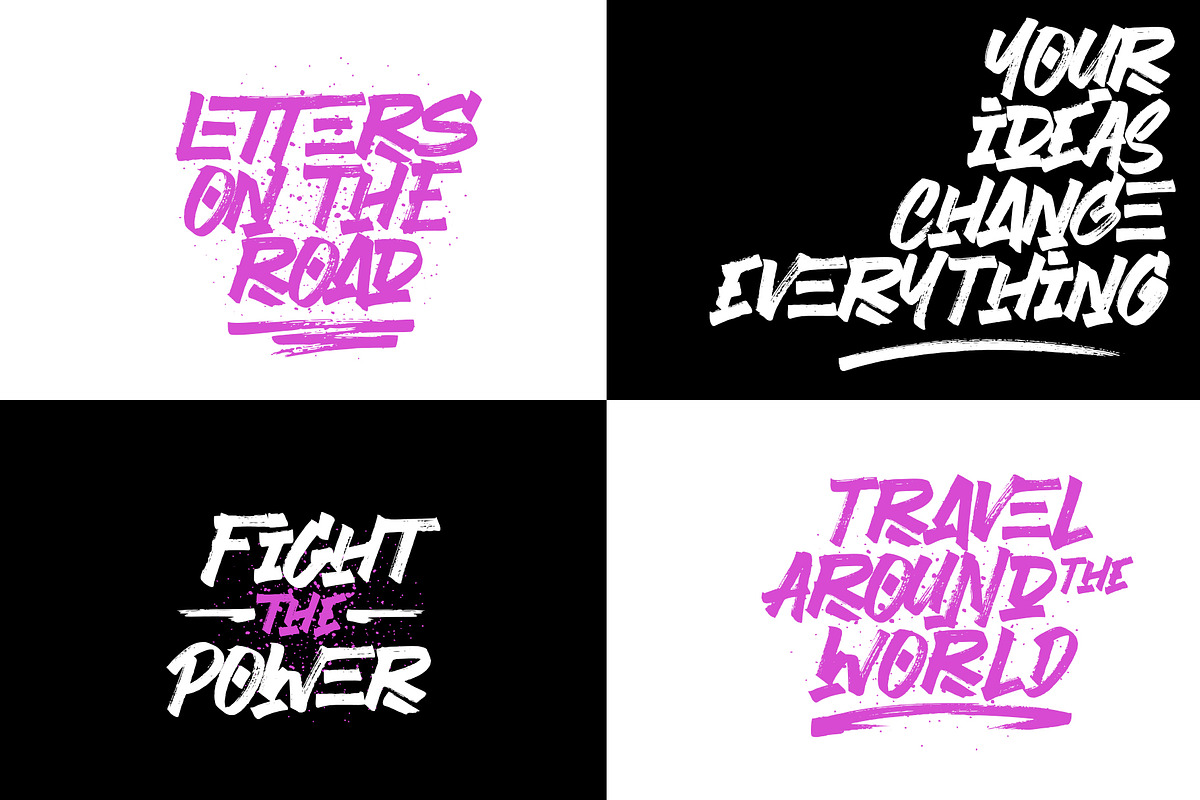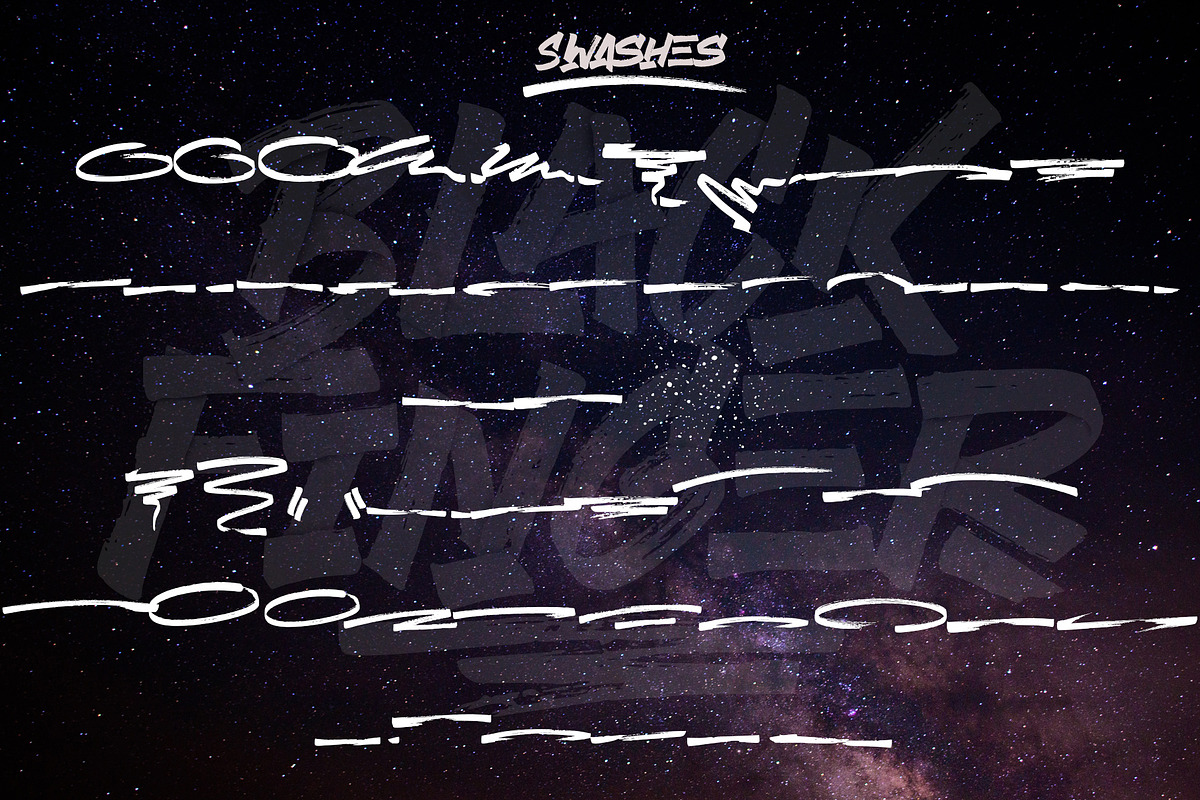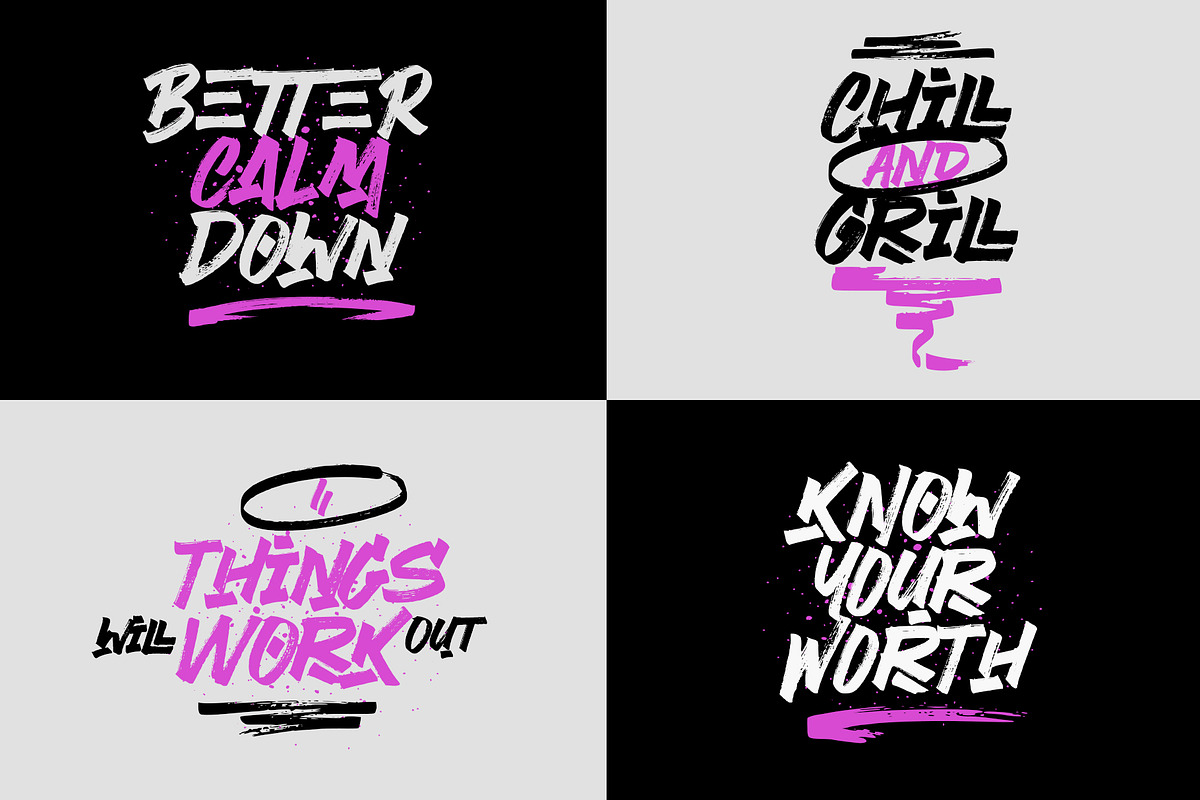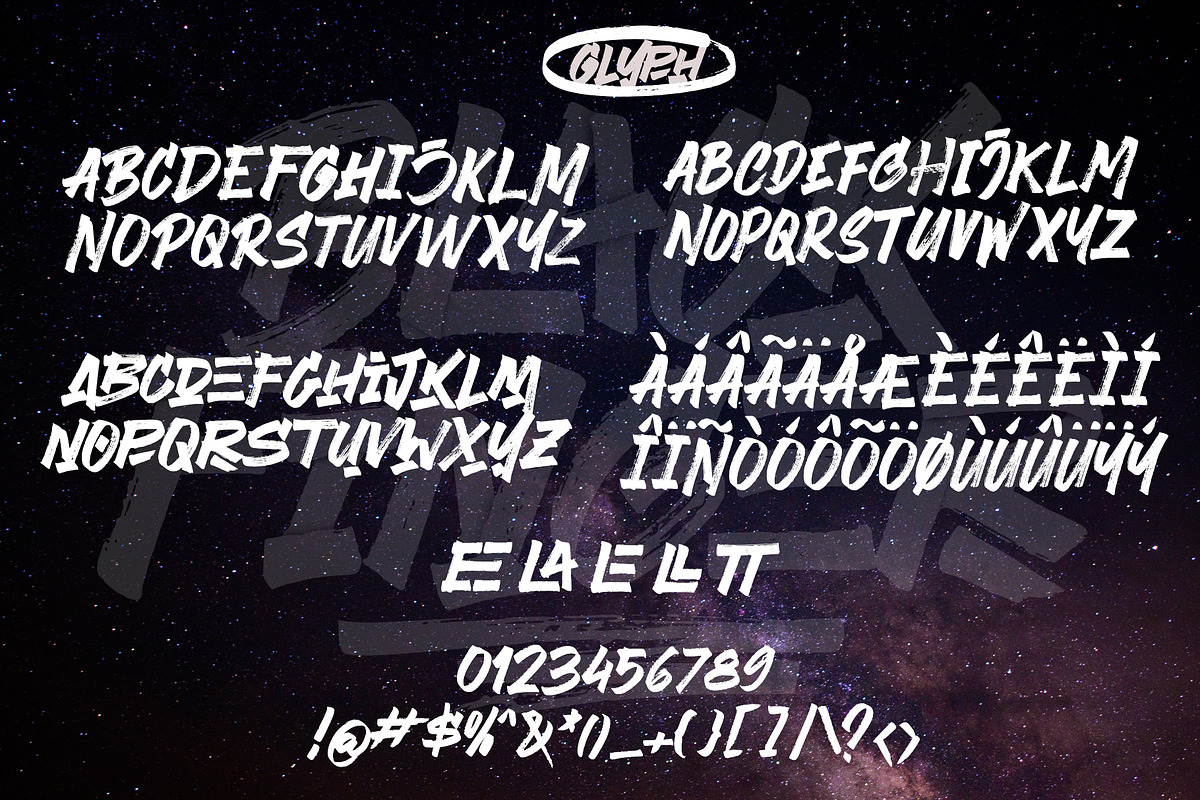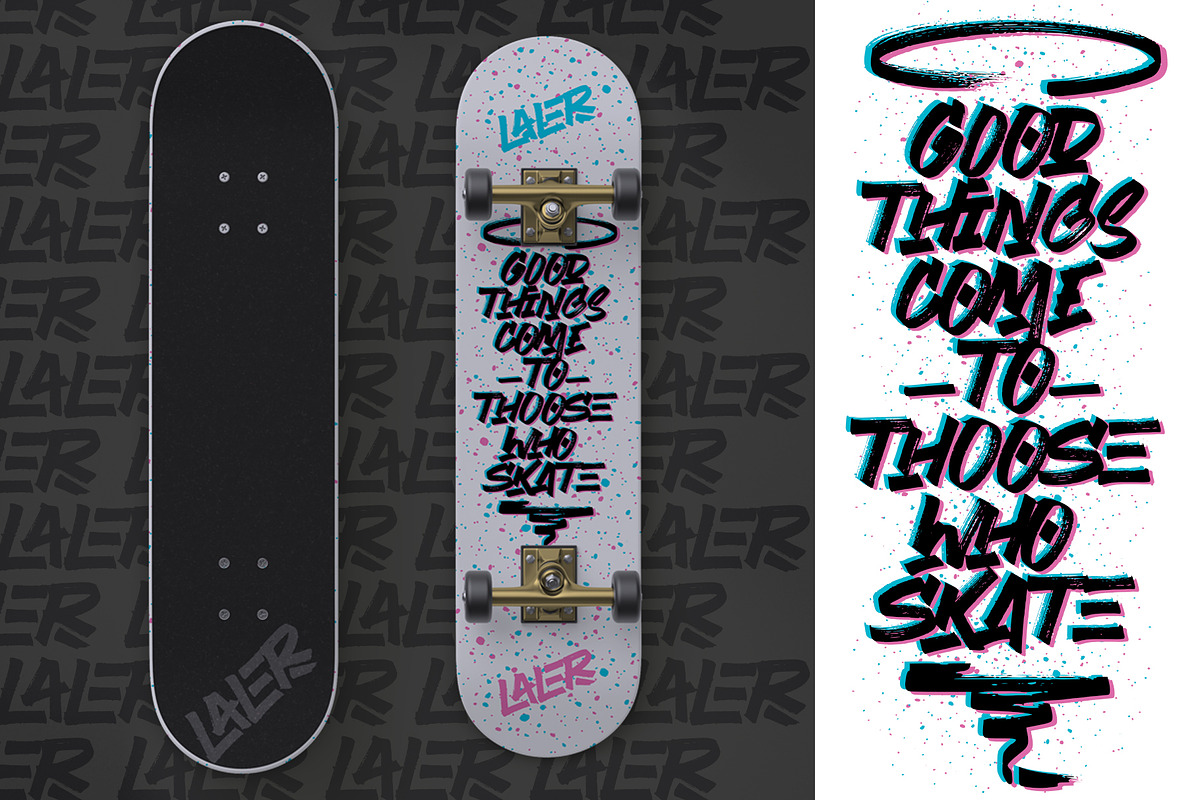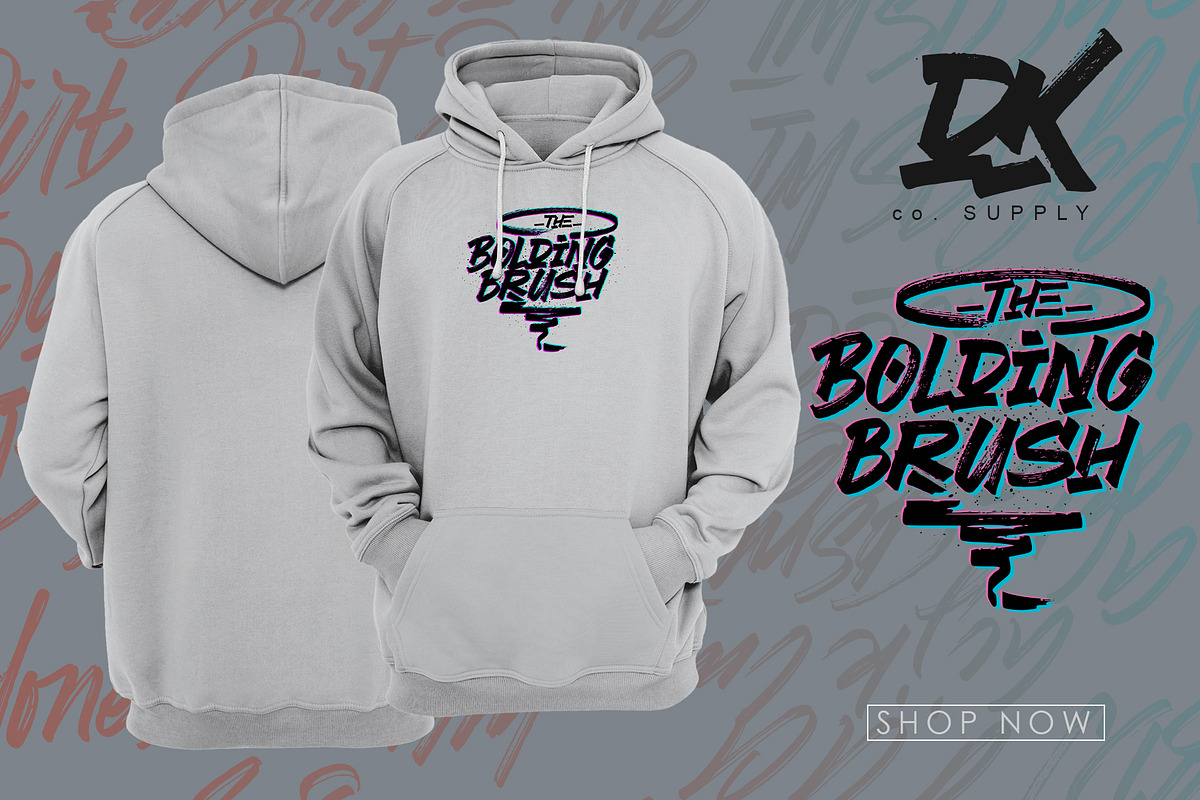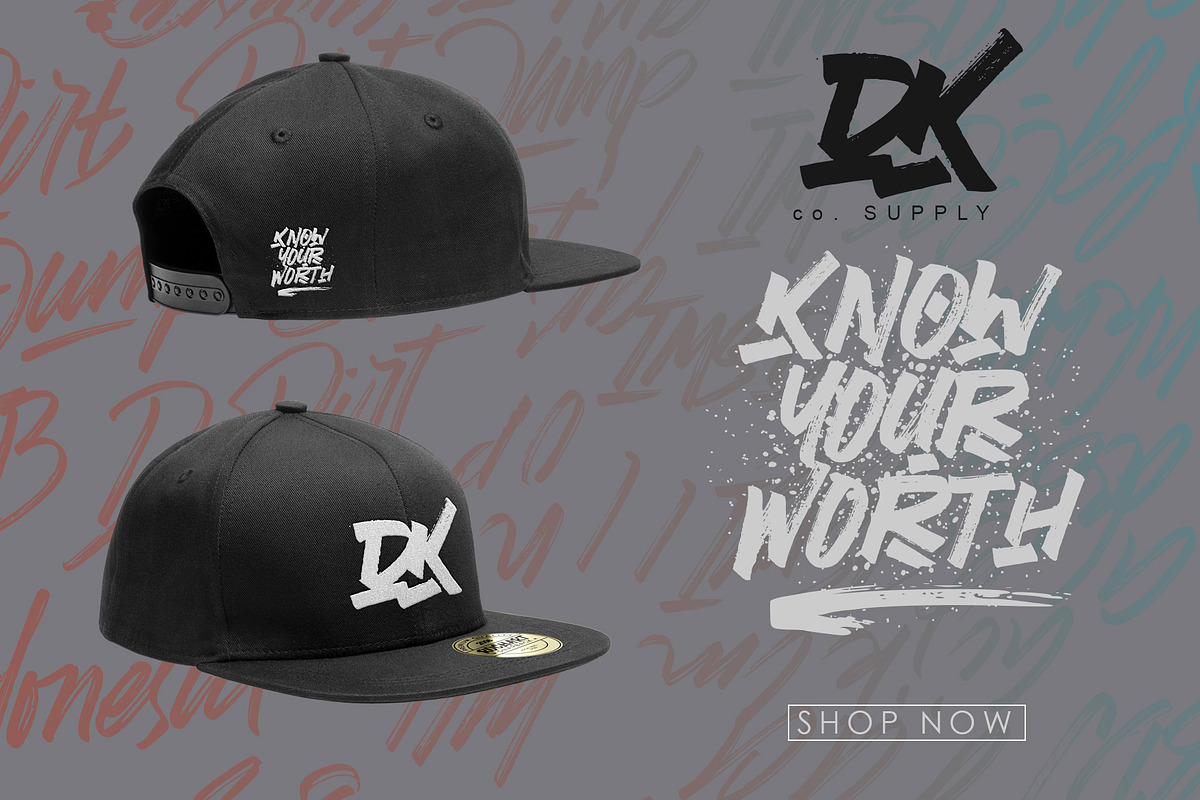
Black Finger Brush Font
Black Fingeris a allcaps hand brushed font, with natural authentic brush, and also provided some alternate, ligatures and Swashes Extra. Brand new stylish textured fonts and Make it easy for made logotype Handlettering Style. It will be great for Logotypes, Posters, Digital Lettering Arts, Clean Design, Branding Design, Sign, Merchandise and Social Media Posts. This font contain of Uppercase, Lowercase, Number, Symbol, Punctuation, also support multilingual and already PUA encoded.
Note : Black finger is not an SVG font, shading and texture effect on the cover preview is only a manually created.